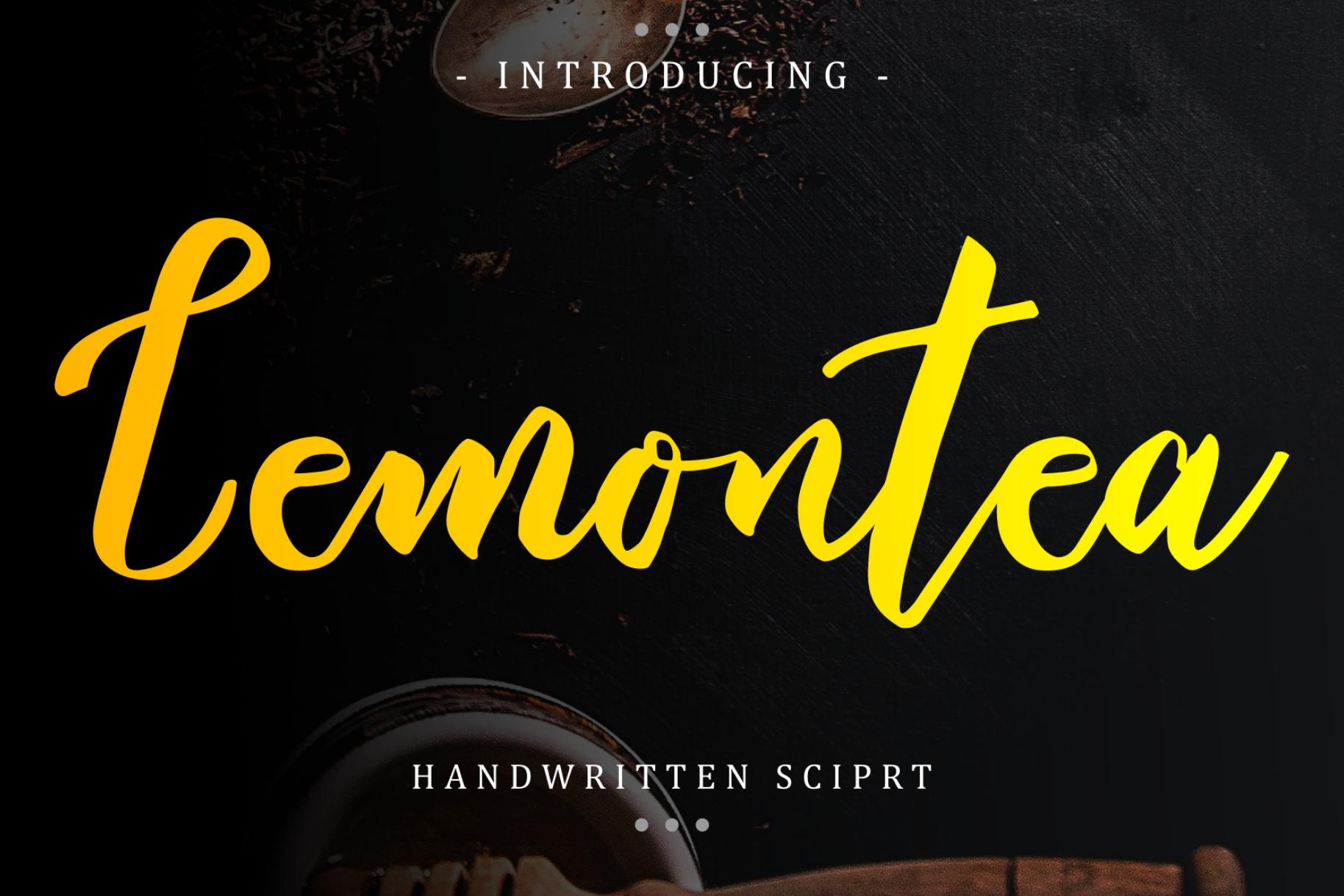
Lemontea Font Description
Lemontea is a magical handwritten font carefully created with a touch of elegance. This enchanting font will turn any creative idea into a true standout. Get creative with its unique look, and use it to brighten up any crafting project.